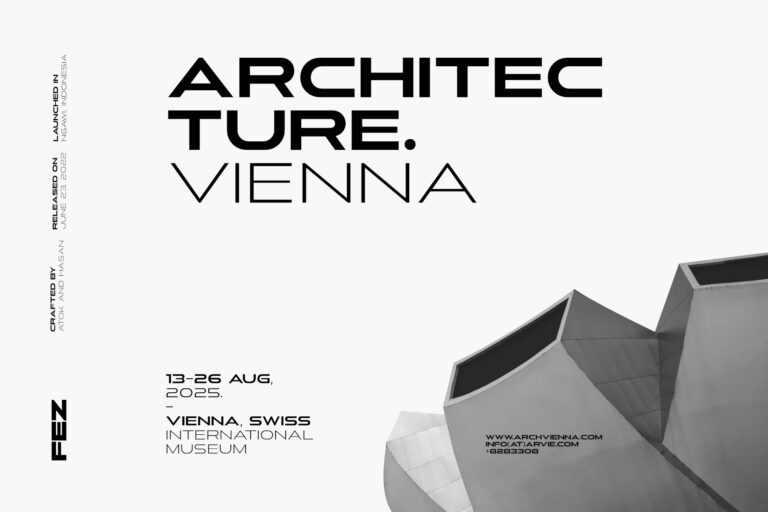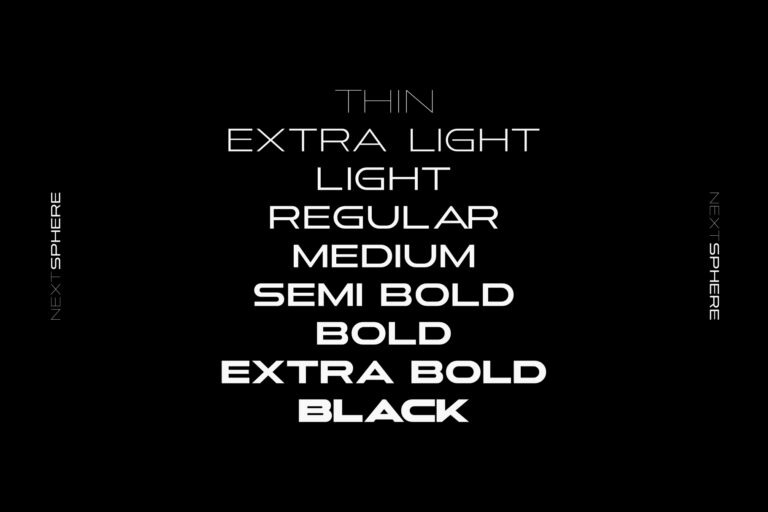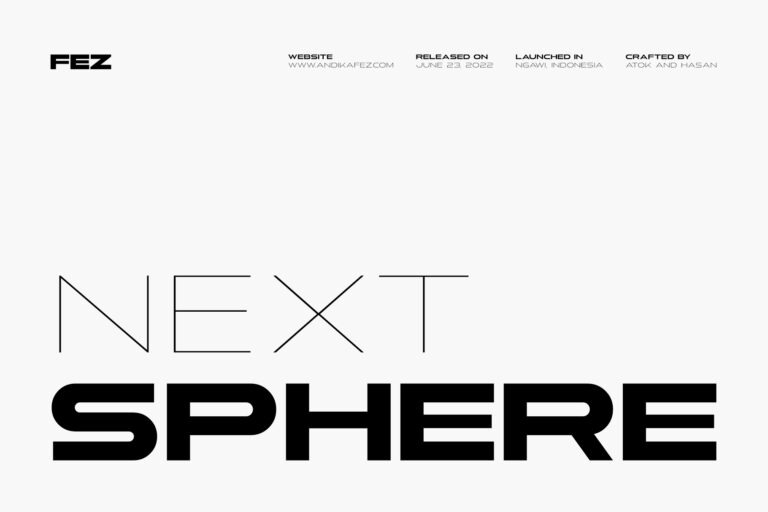
Next Sphere Font
Next Sphere Sans Serif Font
This is a display sans font that is absolutely perfect for editorial headlines. Her large, bold and slender figure is perfect for posters, t-shirts, and magazine covers. Add this super extended font family confidently to your favorite creations and let yourself be amazed by the outcome generated.